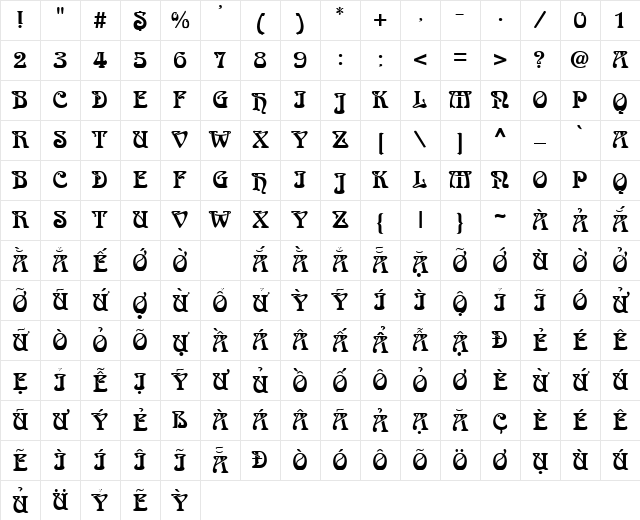
Complete VPS Binh Long Hoa Normal glyph index. Displaying only characters natively supported by VPS Binh Long Hoa Normal font.
VPS Binh Long Hoa is a composed and adaptable typeface that performs quietly and consistently across a wide range of design contexts.